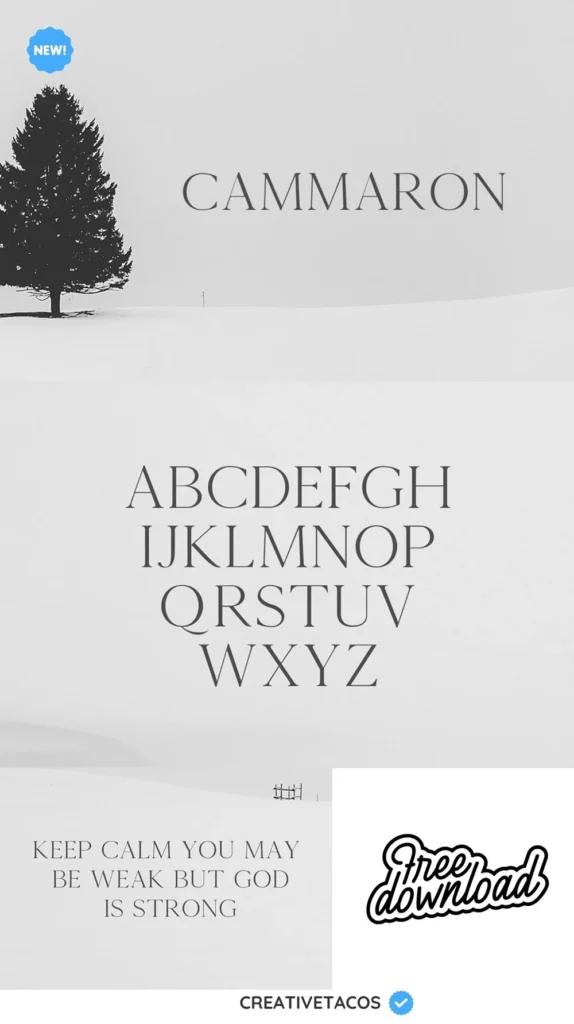
Cammron Serif Font
Introducing Cammron Serif Font, a simple, modern and dashing font that will pair beautifully with the script, signature or handwriting style.
It contains uppercase and numbers glyphs. It is best for headlines, titles, magazines headings, logo, advertising, posters, quotes, web layouts, invitations, packaging design, books, branding, and nearly any creative design. You can buy the full version below.